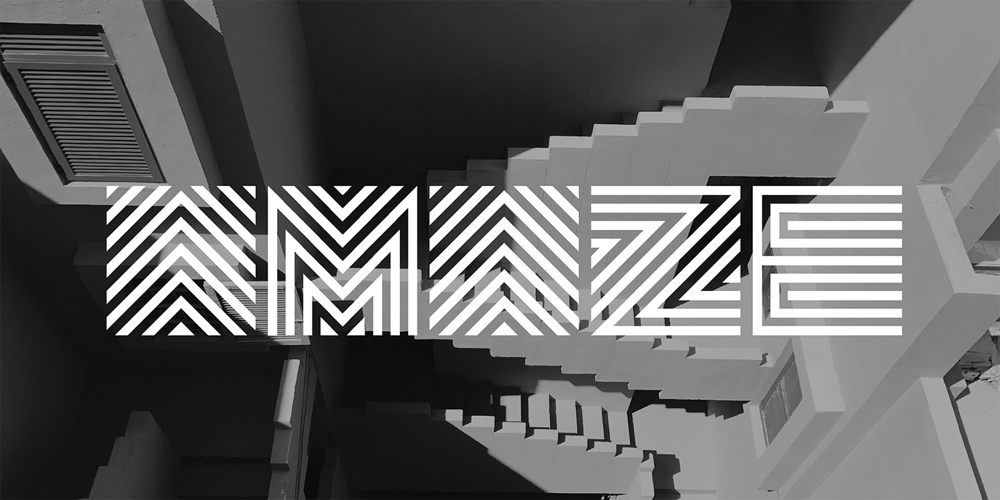
Amaze Font Family was designed by Ng Wee Chean and published by GRAYlab. Amaze contains 1 styles and family package options. AMAZE font is inspired by the maze. Maze always appears as a problem. I feel that in our life, we are facing a lot of problems every day. And for designers, I hope this font can help to solve your design problem. This font is also given an optical illusion. Enjoy and have fun.